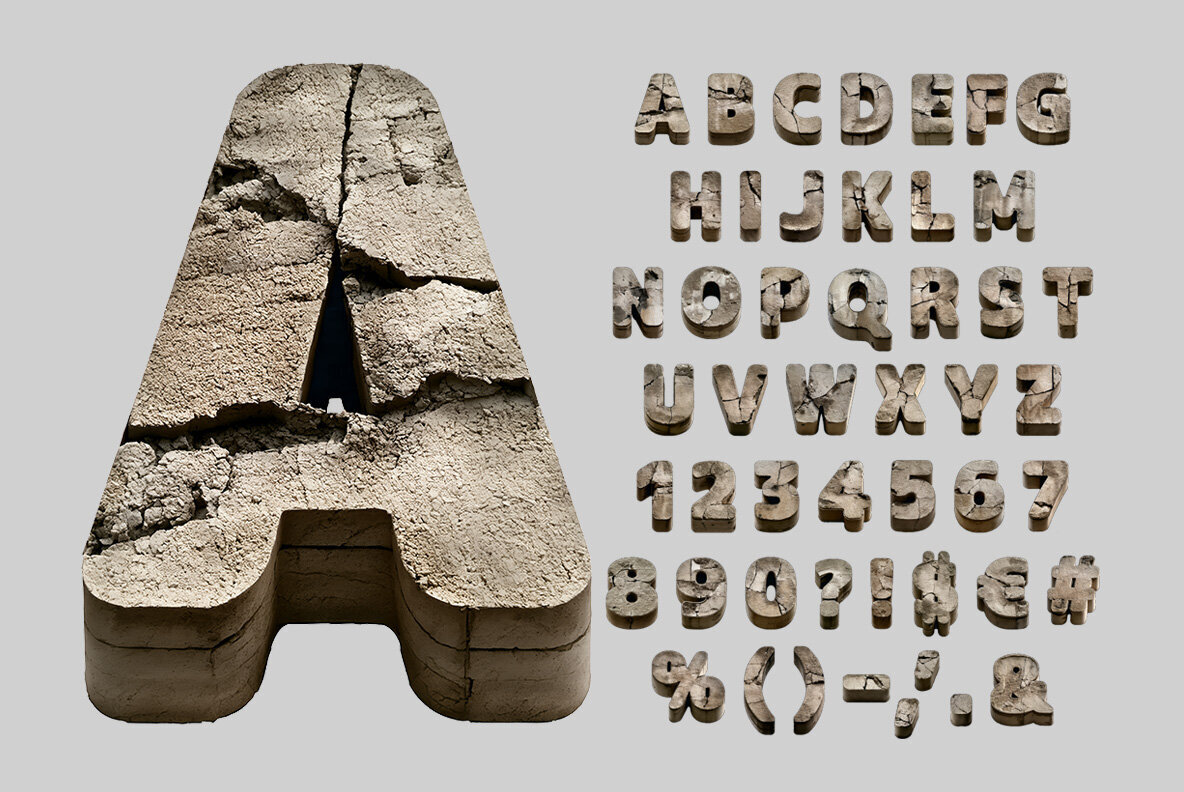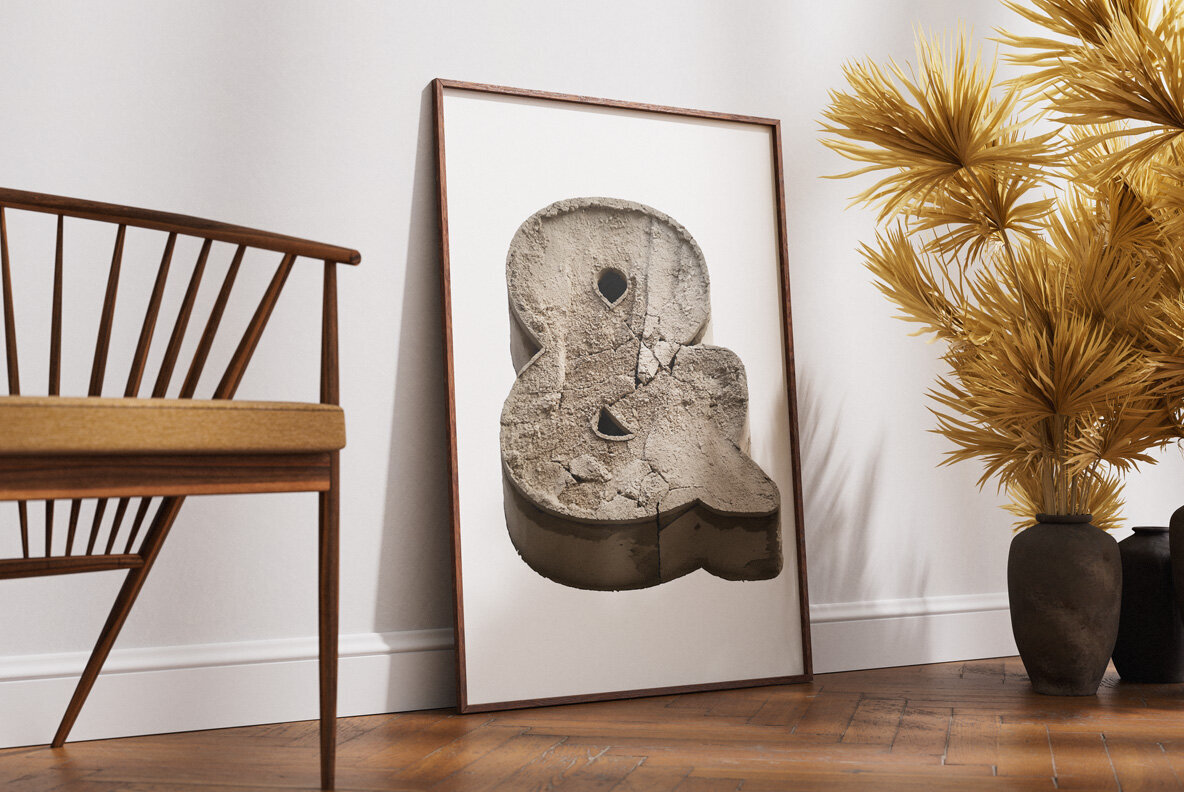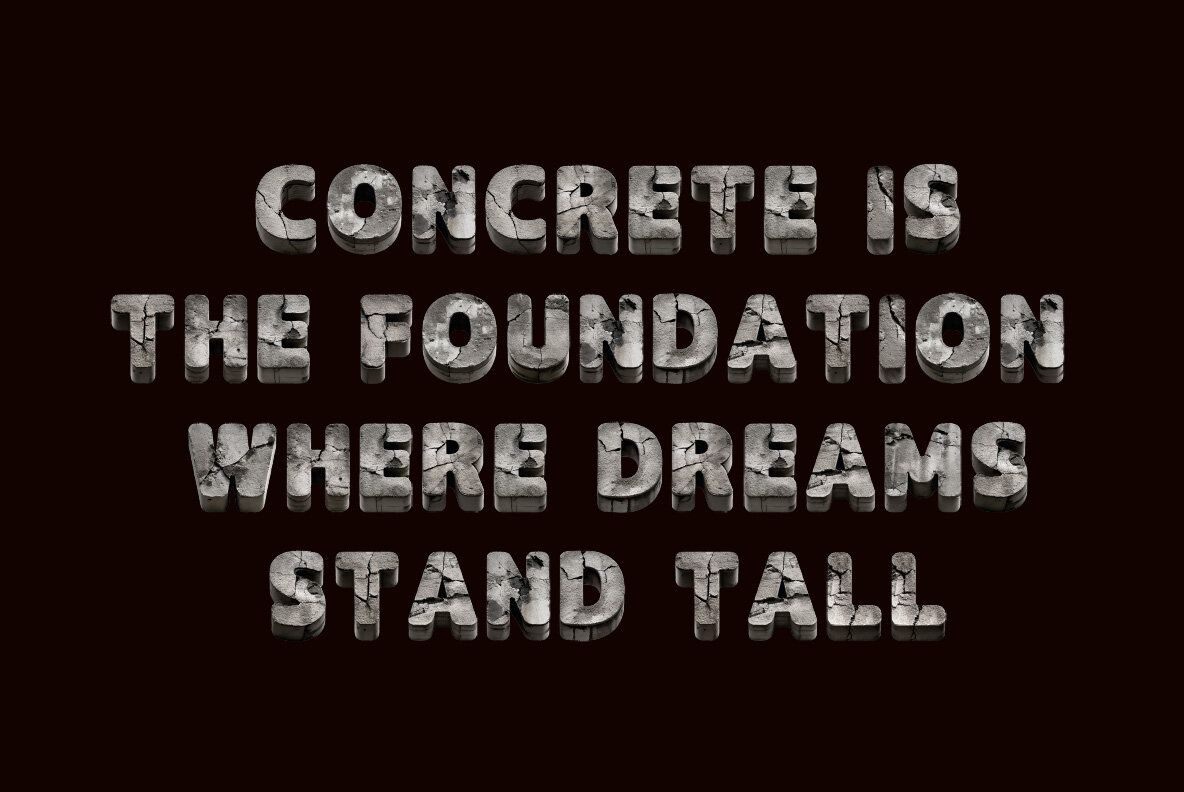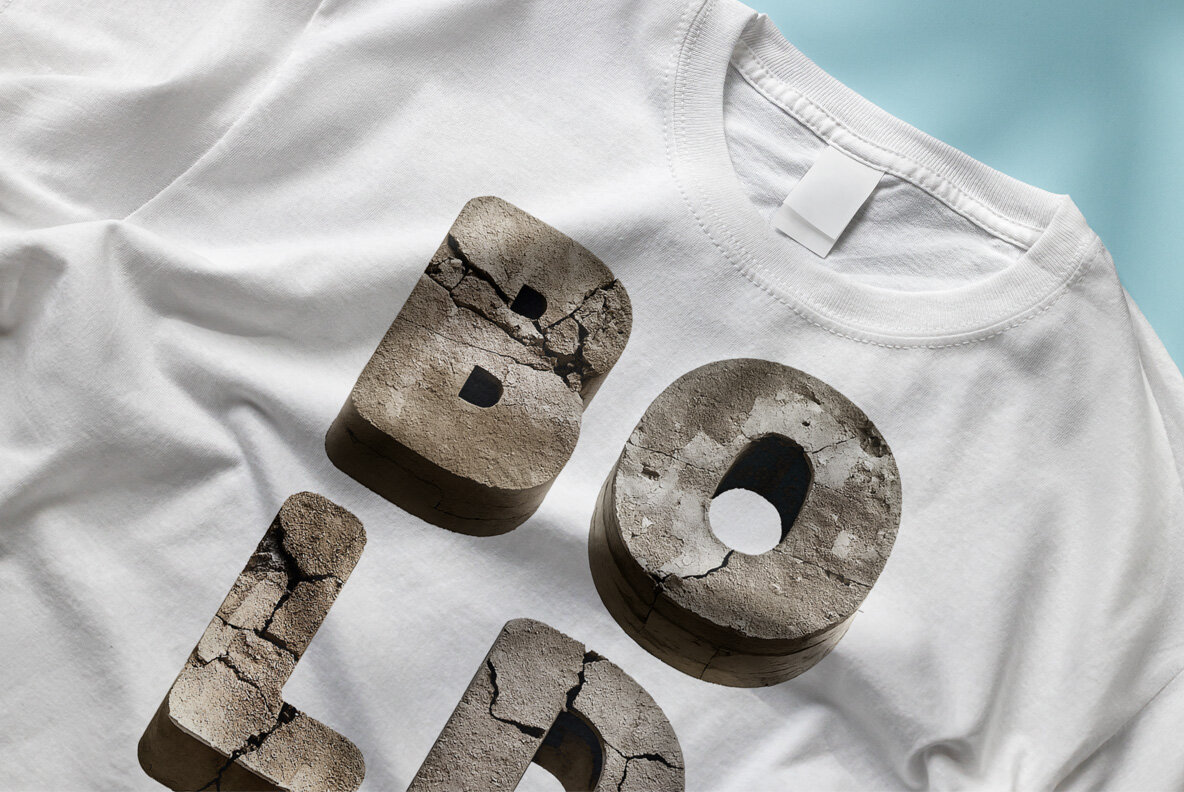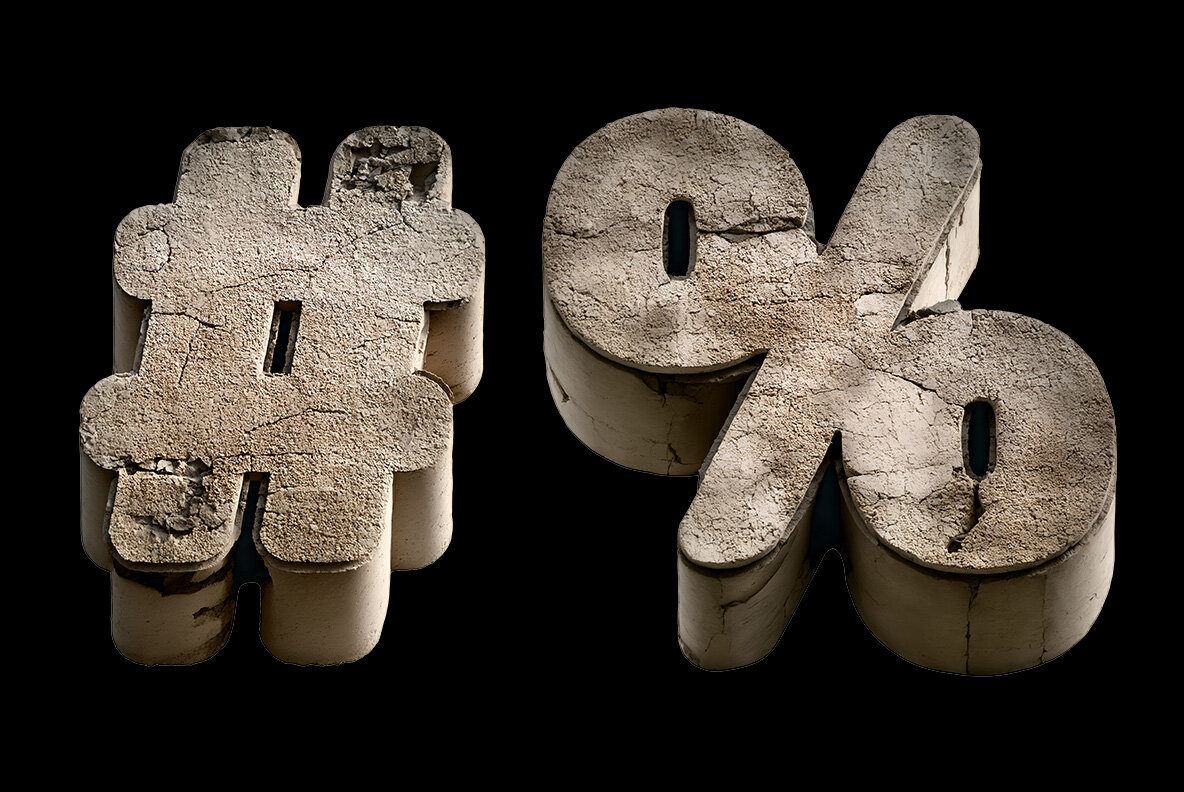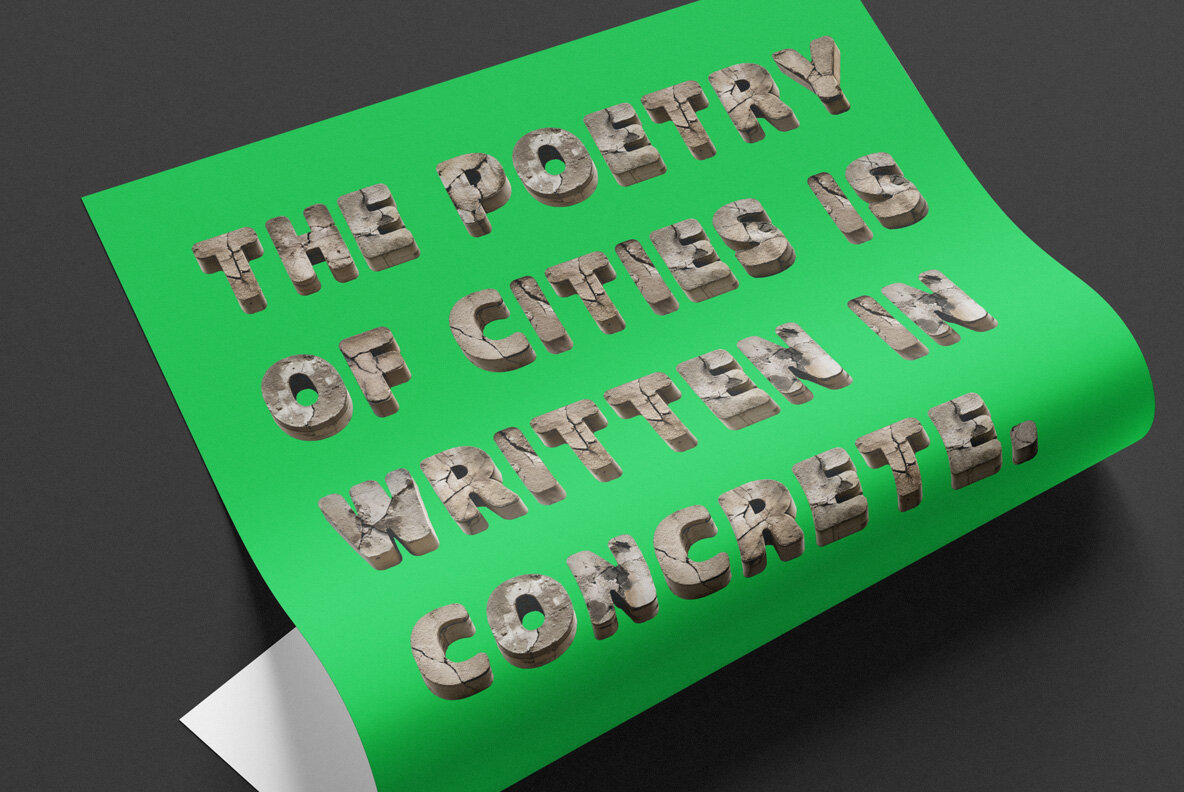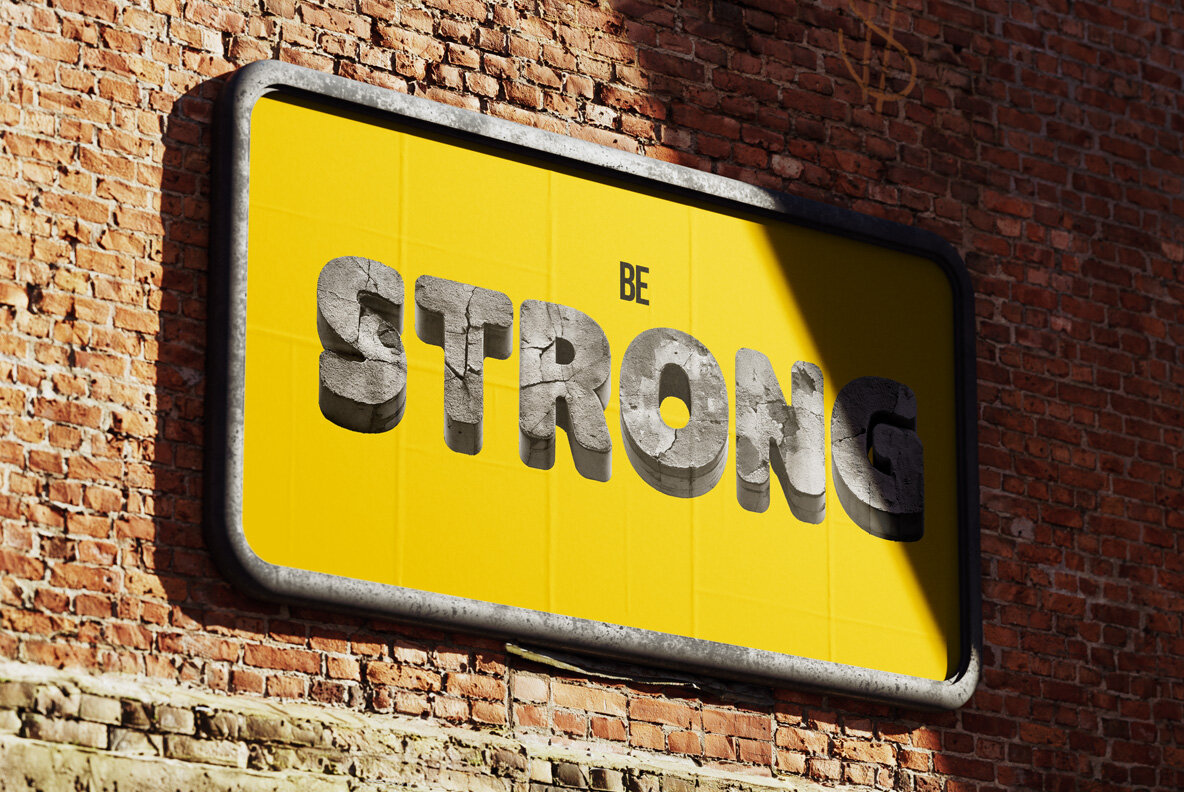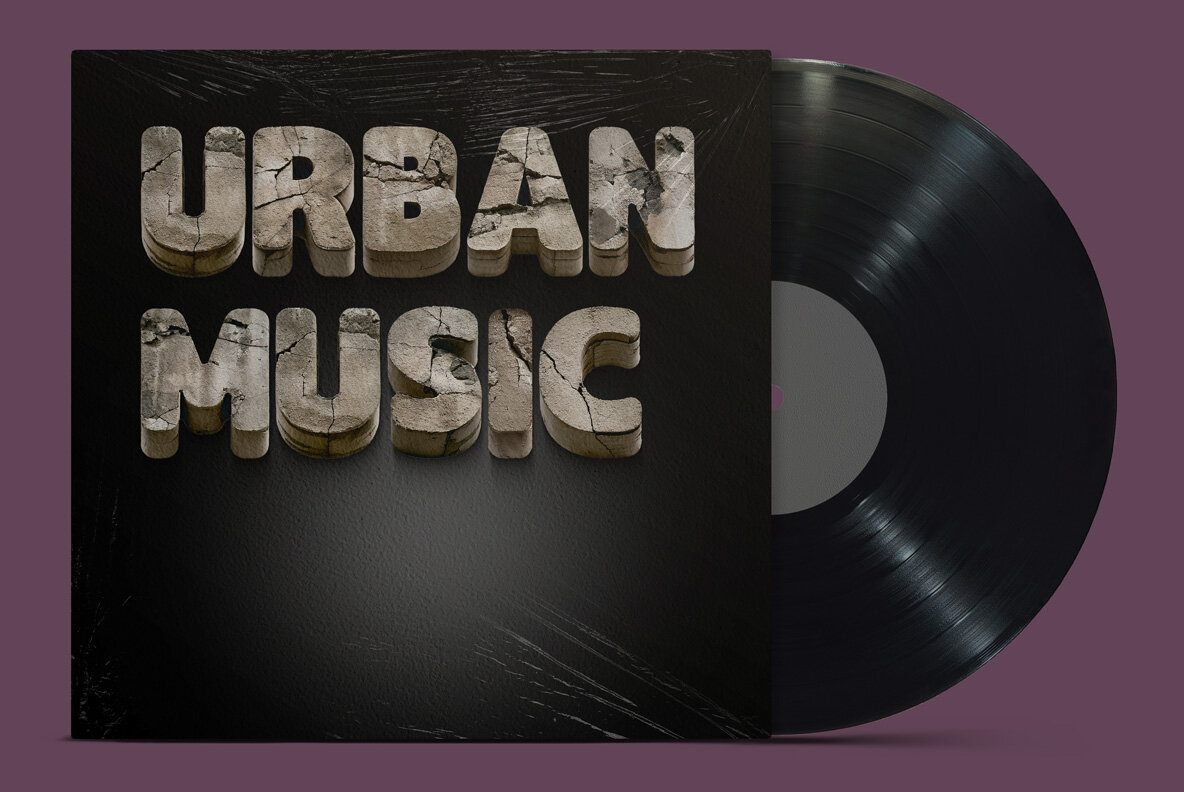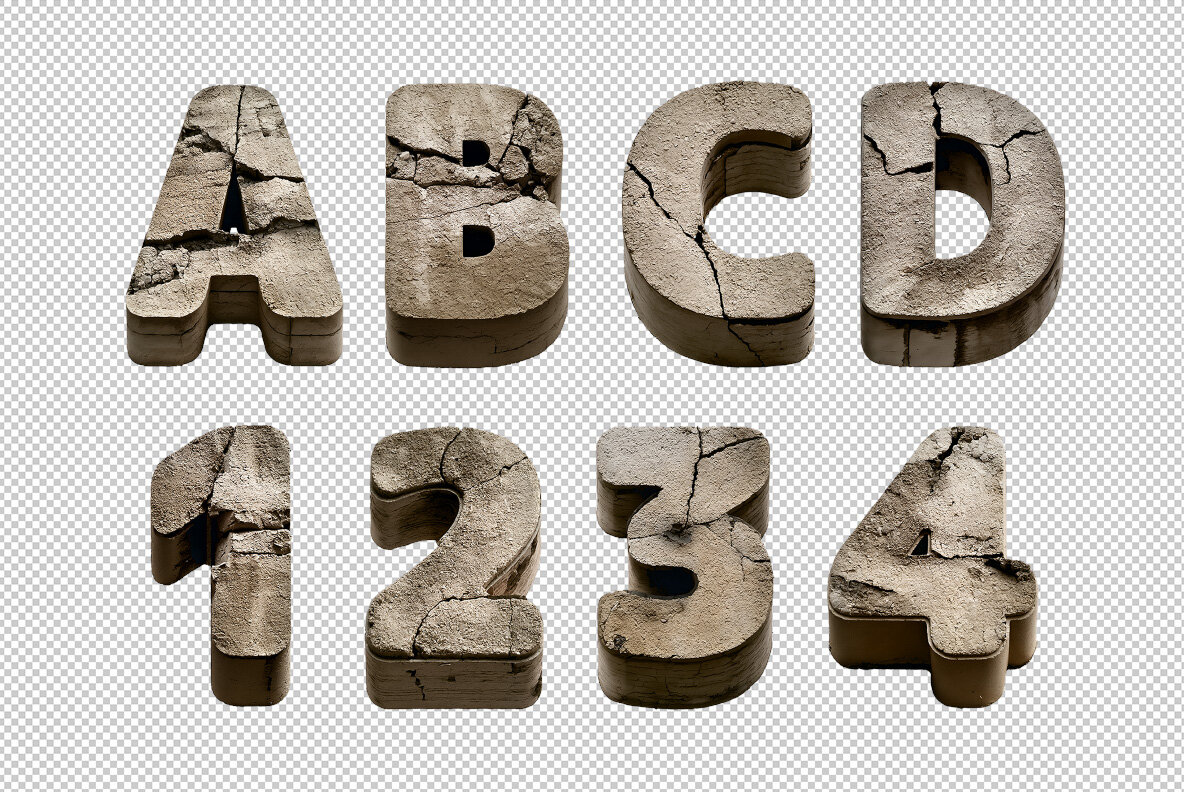
Broken Concrete embodies the powerful texture and raw strength of shattered surfaces through its rugged, cracked design. Each letter showcases an industrial edge, seamlessly blending grit with artistic sophistication. This font is ideal for projects that require a bold, striking aesthetic, imbuing designs with a touch of urban resilience and modern flair. Whether applied to posters, logos, or creative displays, Broken Concrete offers a compelling statement that commands attention and adds tactile depth.